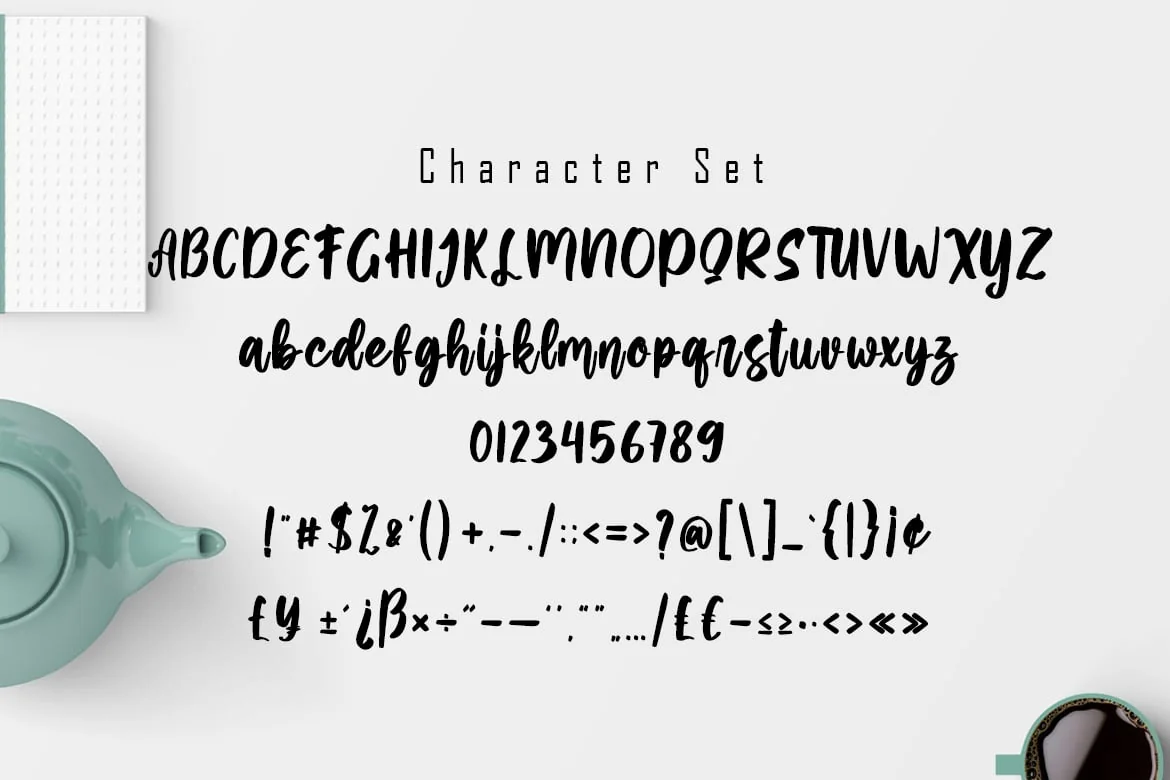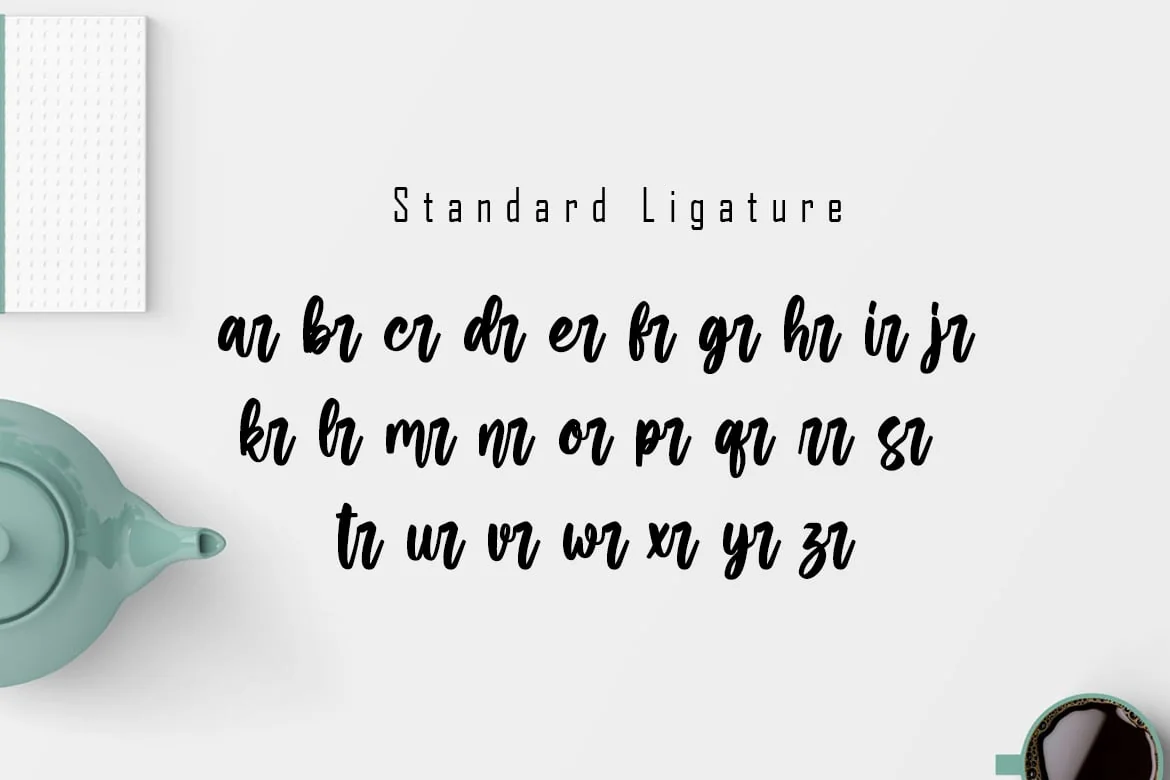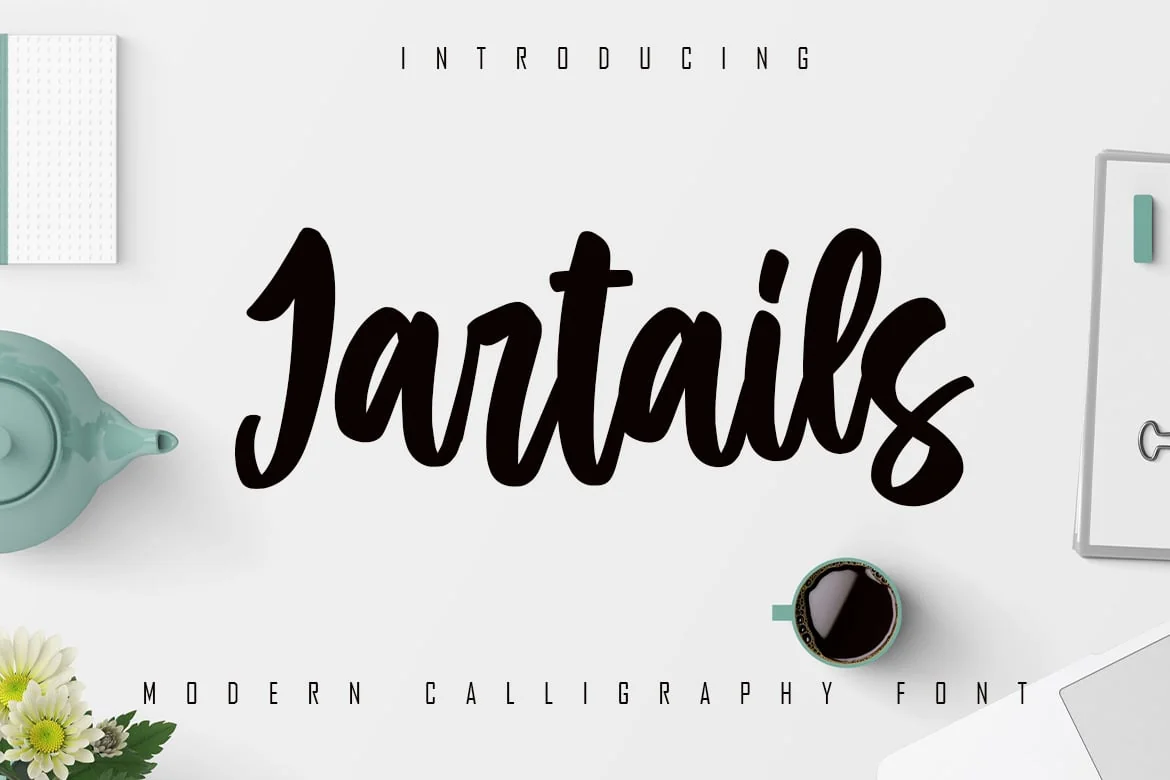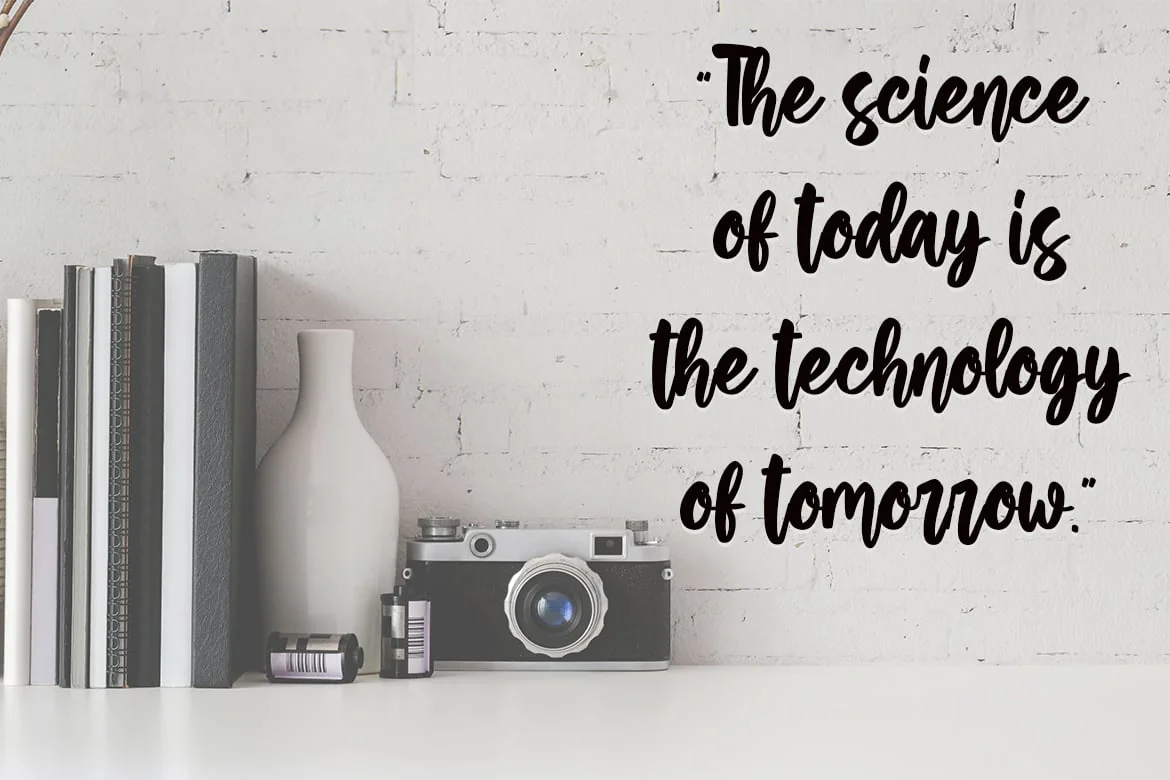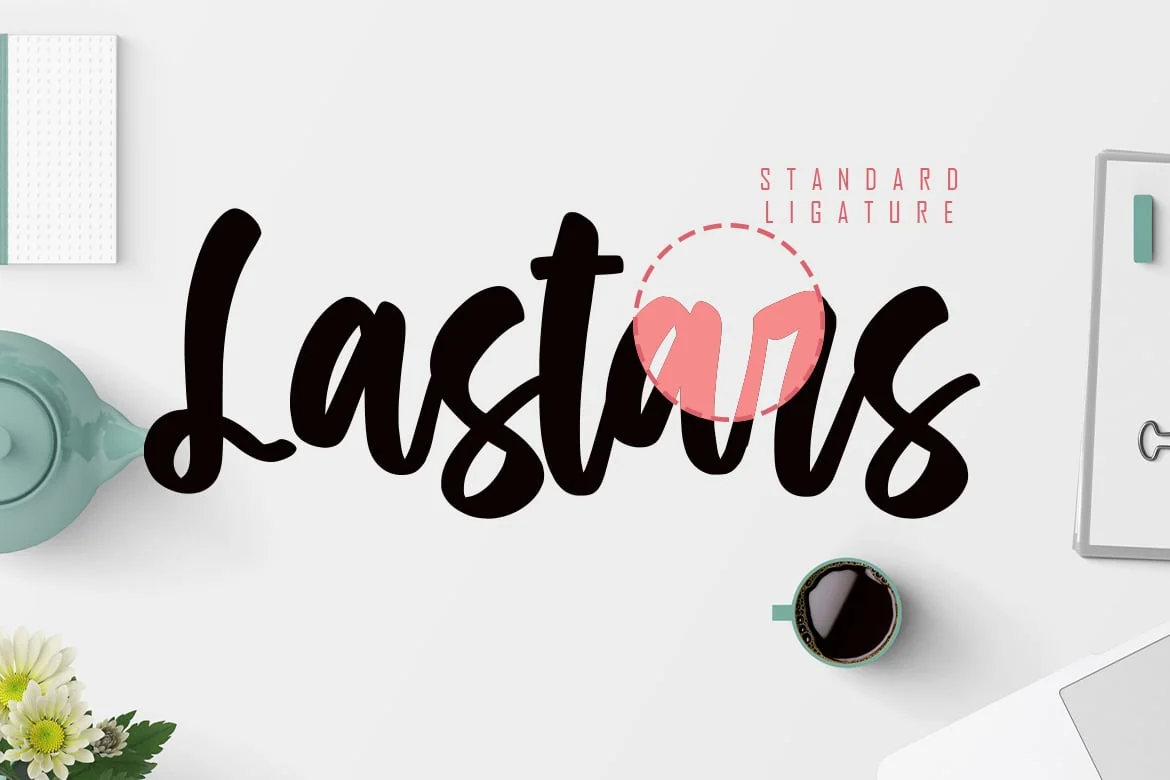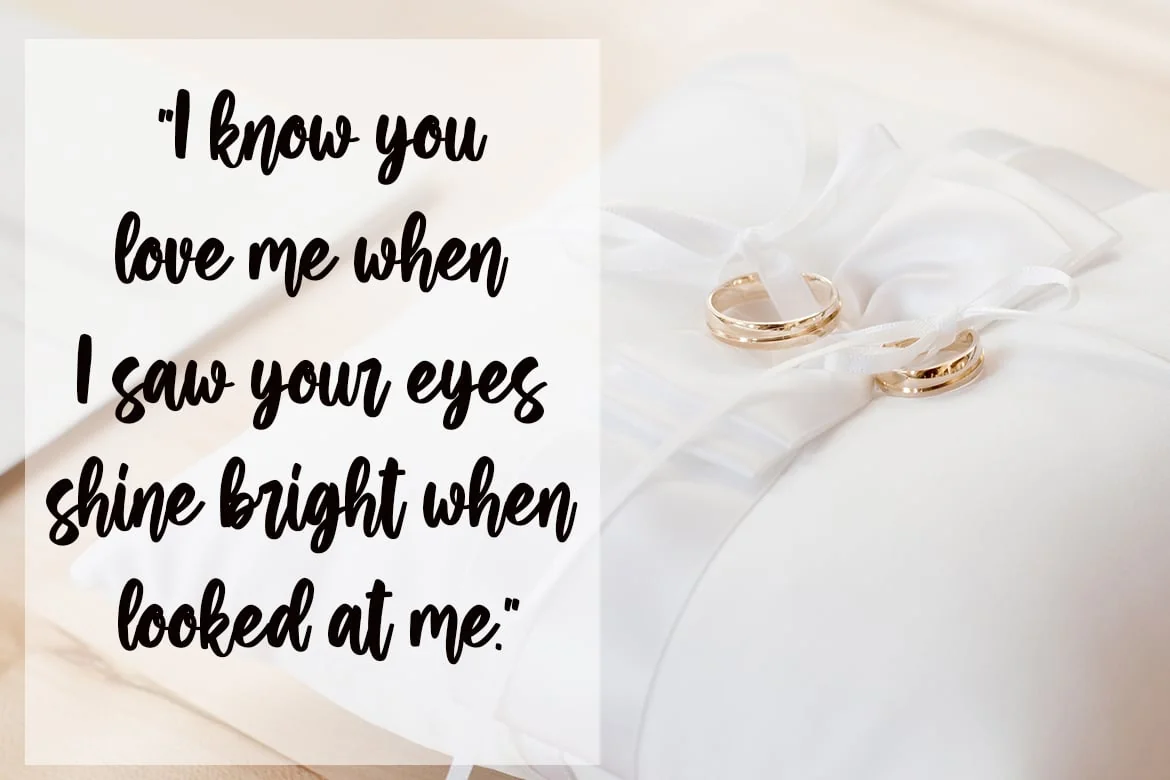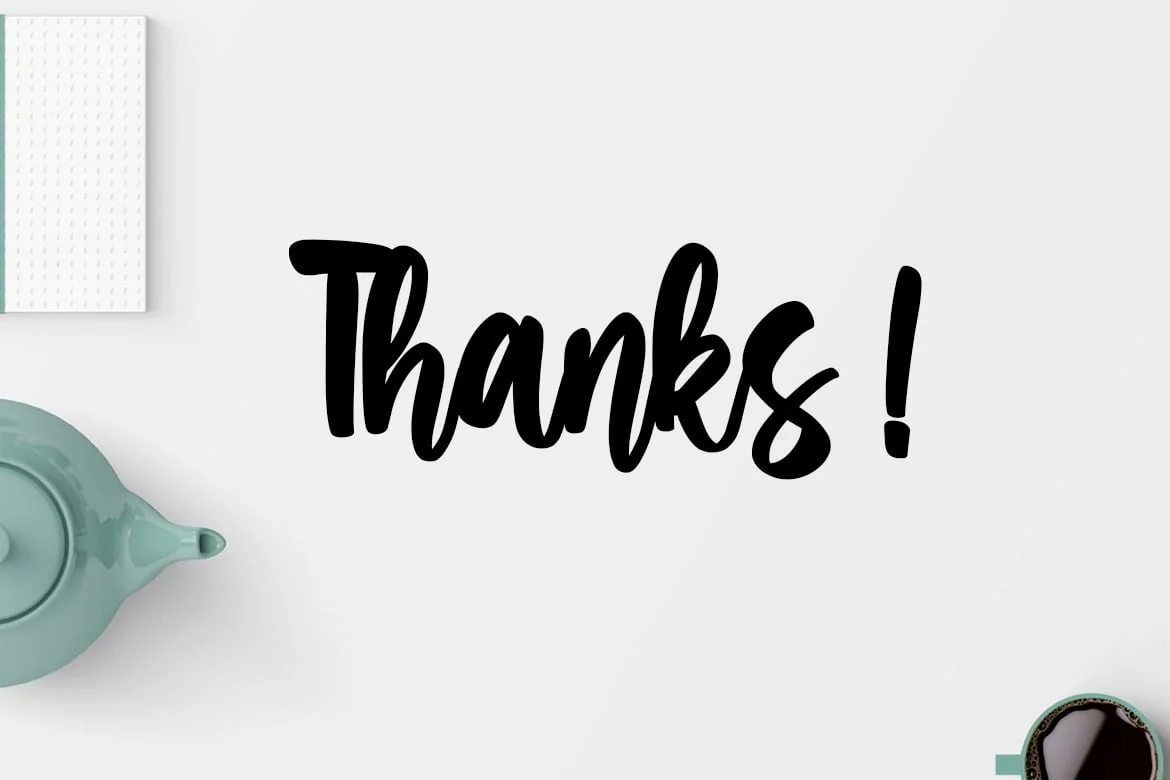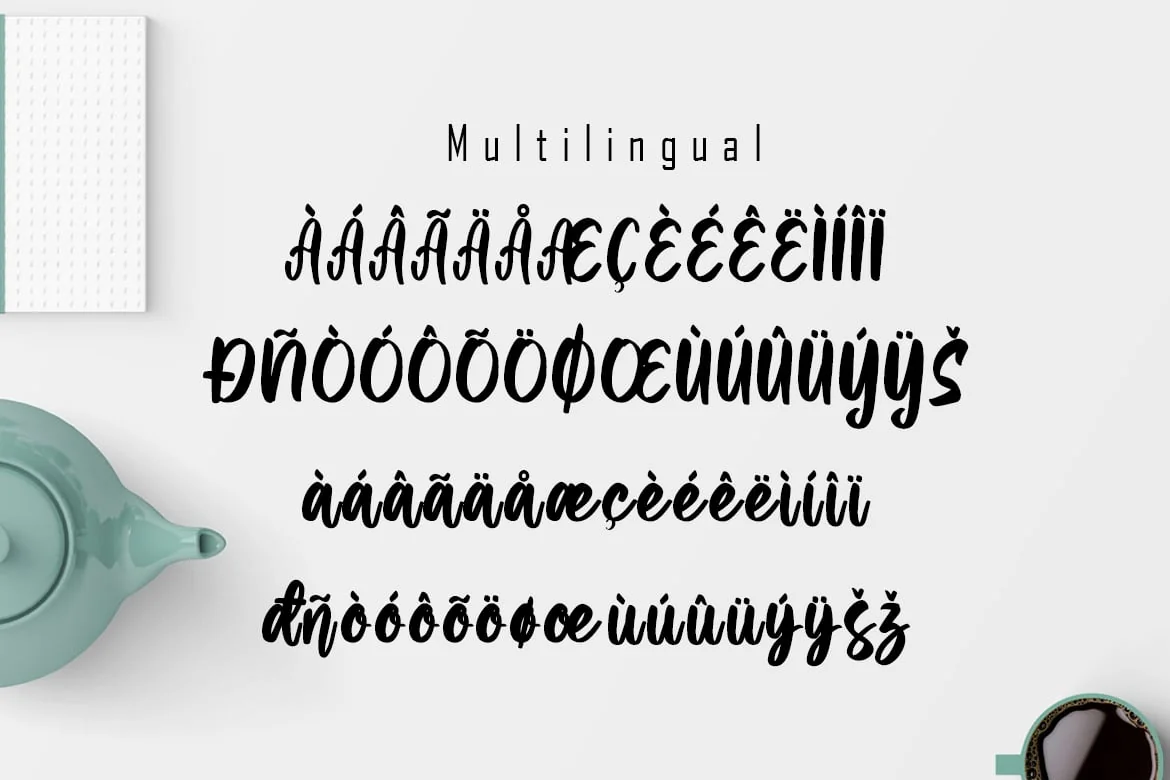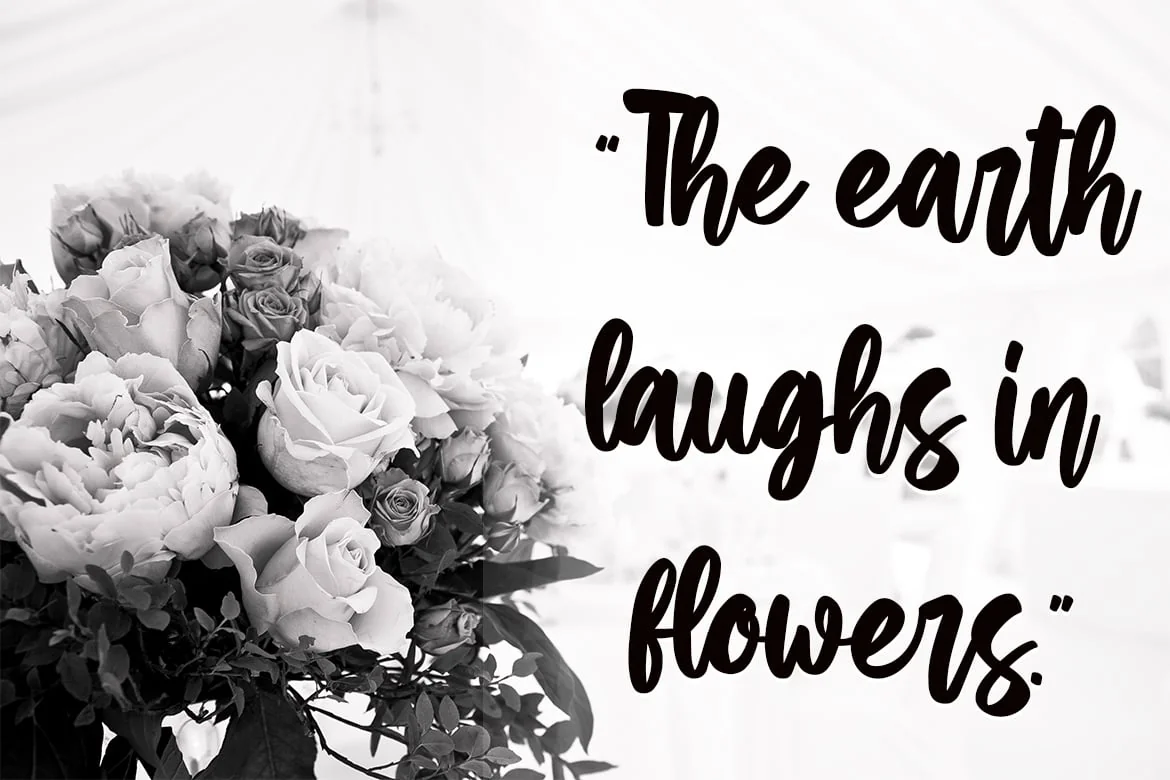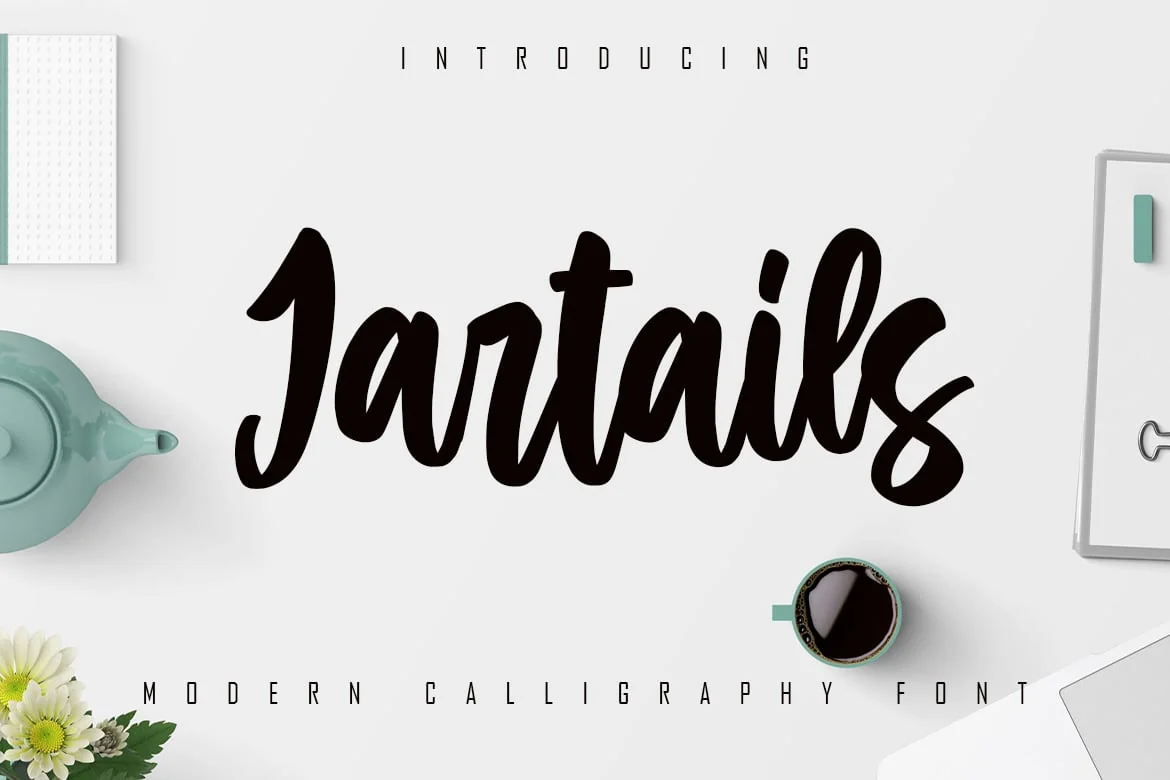
Jartails – Modern Calligraphy Font
Jartails is an elegant and beautiful handwritten script font, suitable for the promotion of your product and helps design your writing to be more attractive and also this font is neatly arranged and modern